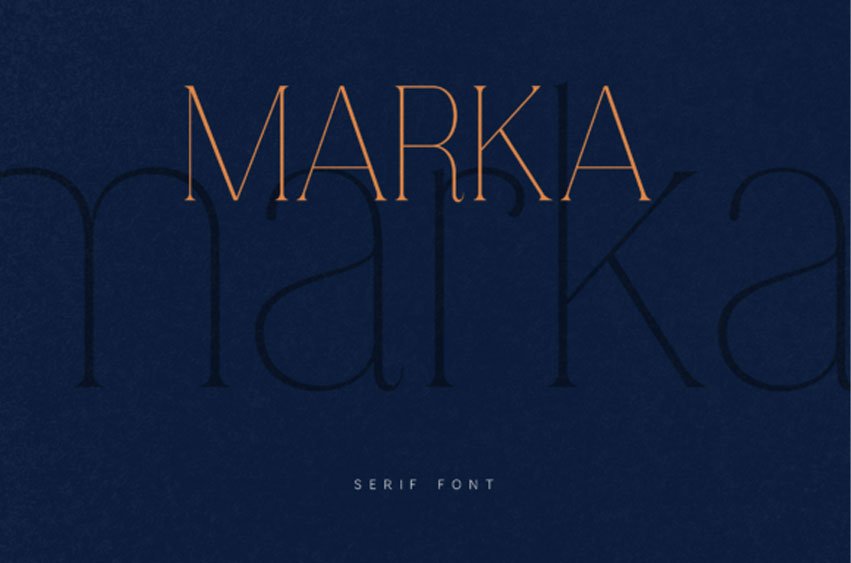
Marka Font is an elegant modern serif font designed for refined typography and sophisticated visual design. Marka is ideal for branding, editorial layouts, luxury packaging, fashion typography, magazine headlines, posters, logo design, modern visual identities, and high-end typography projects. The elegant rhythm of the letterforms allows designers to create compositions that feel clean, sophisticated, and visually striking.
With its elegant structure and modern serif style, Marka offers a refined display typeface for contemporary branding and editorial typography.